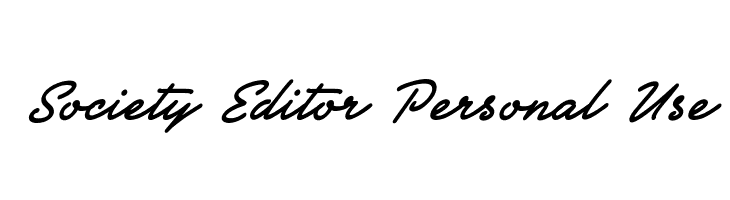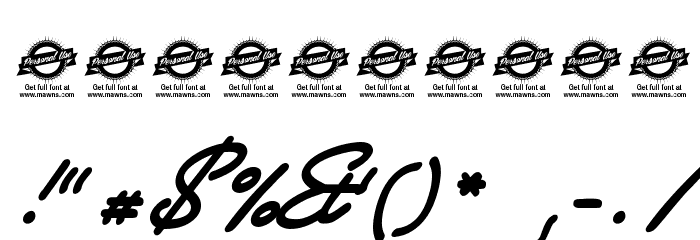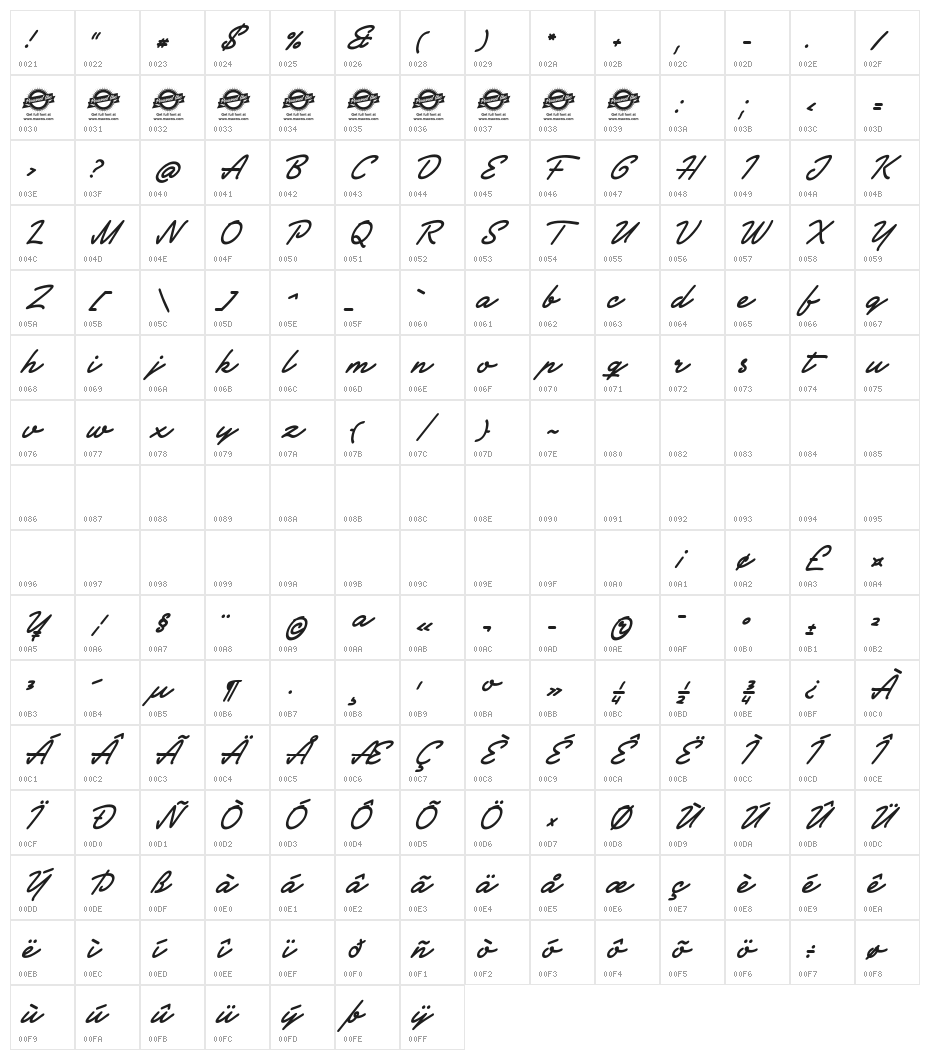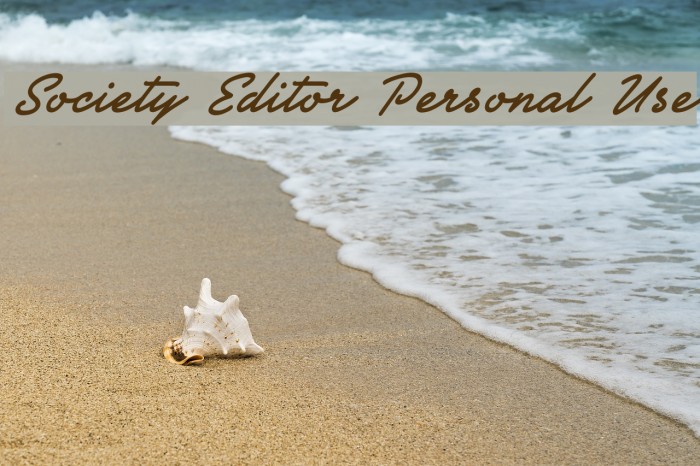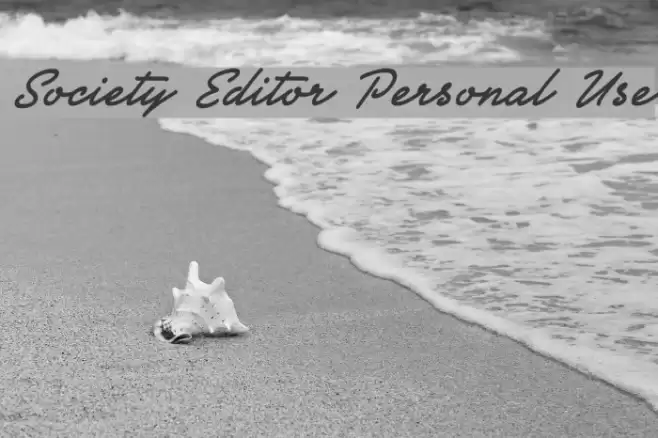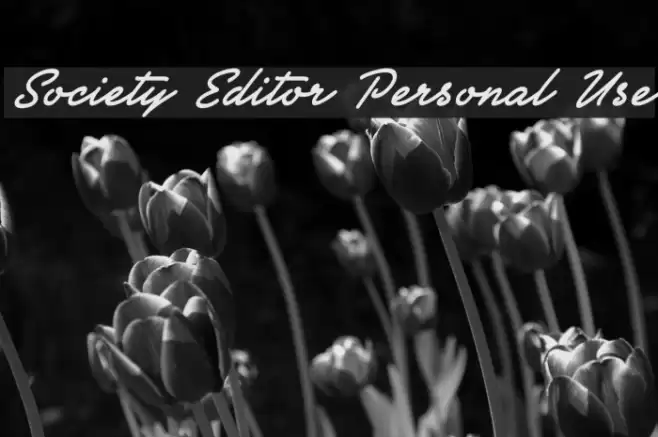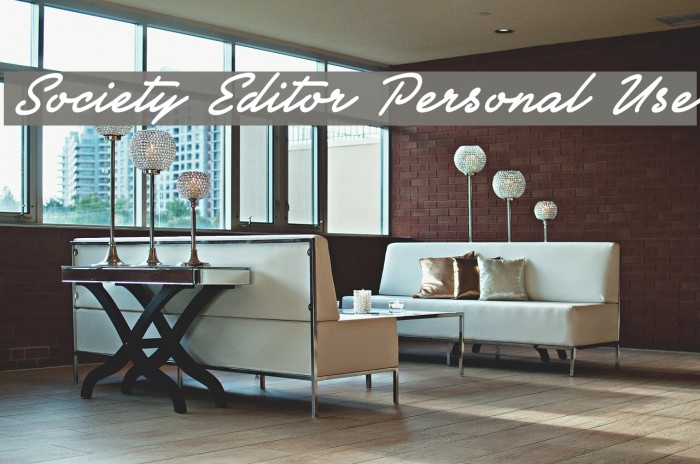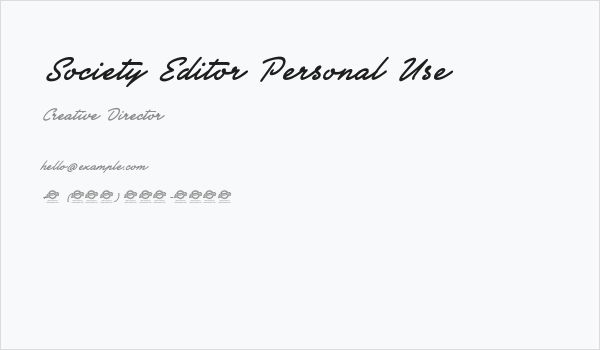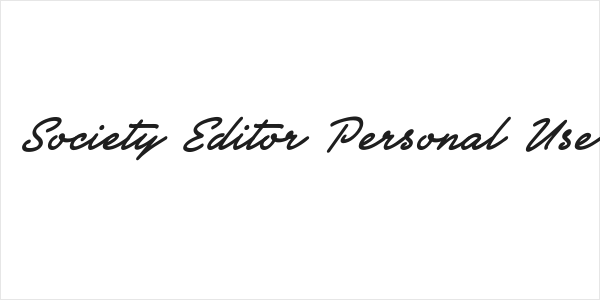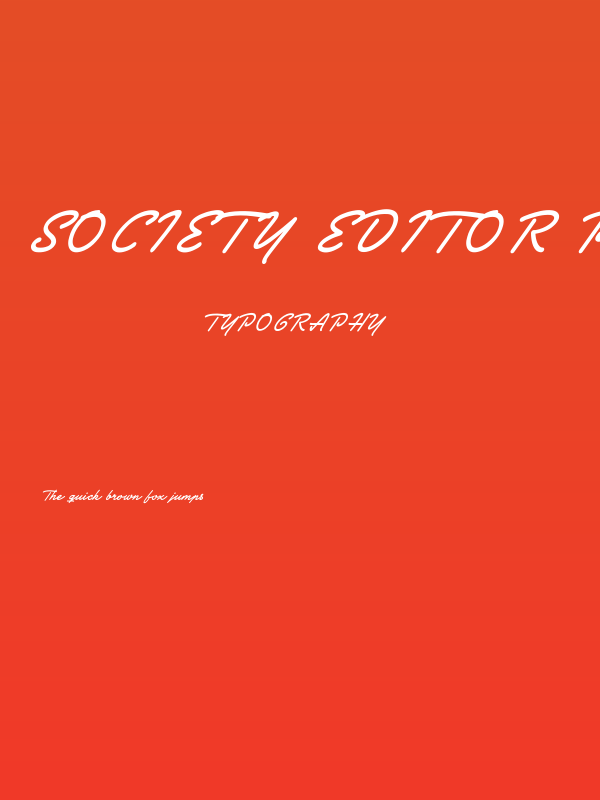
Society Editor Personal Use Font
Society Editor Personal Use Description
This font features a flowing, cursive style with elegant, sweeping strokes that give it a handwritten appearance. The uppercase letters are bold and slightly slanted, while the lowercase letters maintain a consistent flow with connected strokes. The characters exhibit a moderate contrast in stroke thickness, adding to the font's dynamic and lively feel. The special characters are designed to match the overall cursive style, ensuring a cohesive look across all text. This font is ideal for projects that require a personal, artistic touch, such as invitations, greeting cards, or branding materials.